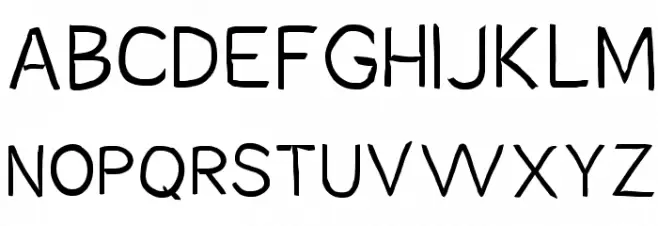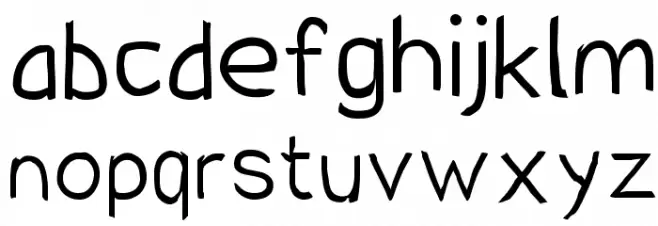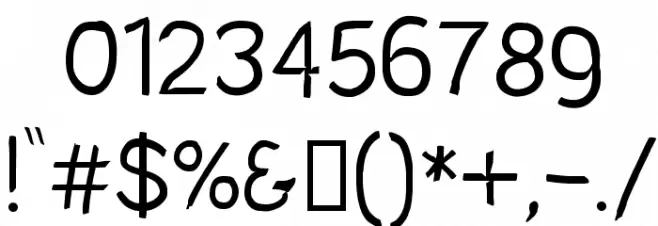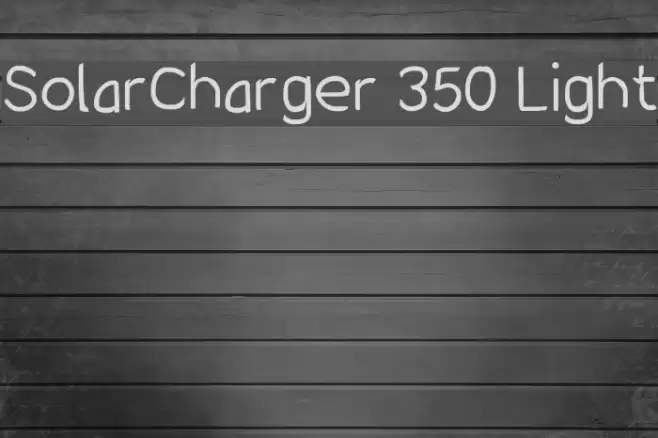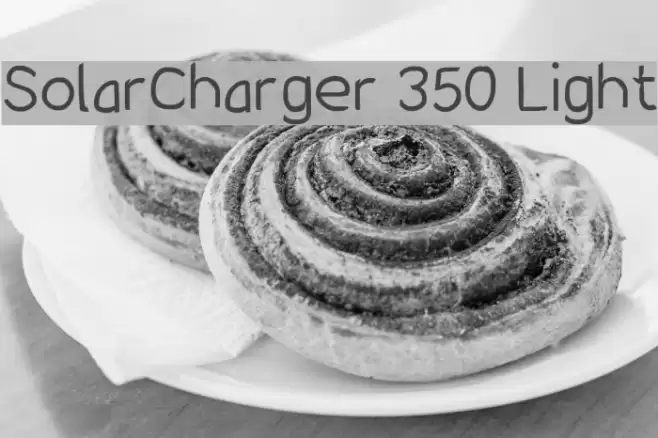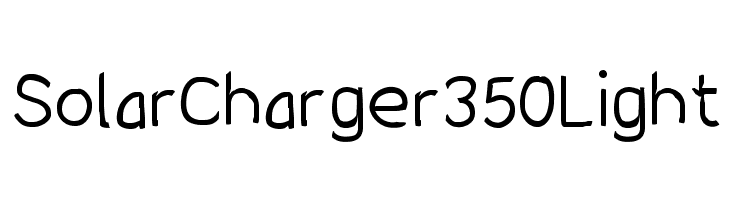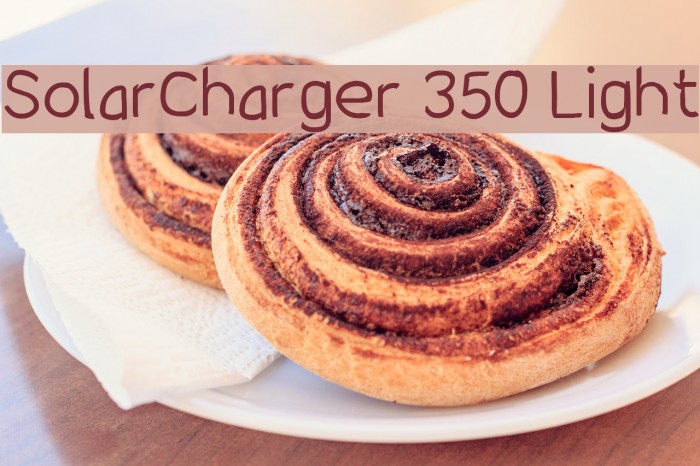
SolarCharger 350 Light
This font features a playful and slightly irregular design, giving it a hand-drawn appearance. The characters are rounded with subtle variations in stroke width, adding a casual and approachable feel. The uppercase letters are bold and distinct, while the lowercase letters maintain a consistent flow. Numbers are clear and easy to read, with a similar style to the letters. Special characters are well-integrated, maintaining the overall aesthetic. This font's unique style makes it suitable for creative and informal projects.
A playful, hand-drawn font with rounded, irregular characters.
- Proposed Projects: Ideal for children's books, casual branding, greeting cards, and creative posters.
- Weight: Light
- Overall Style: Casual
- Use Case: Headlines, Logos, Informal Text